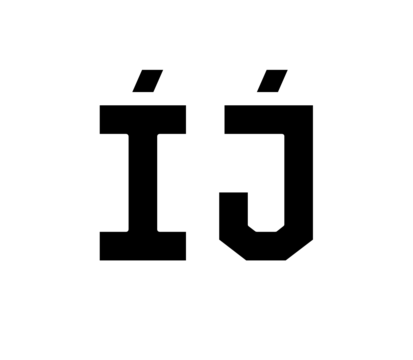
Bombay is a caps-only display font. Its letterforms are sans serif, and they look like they come from a monospaced font. However, Bombay’s monospaced-appearance is just a strong look ; in actuality, its letters have proportional widths. These appear quite industrial and constructed, too – almost as if they had been made by a machine, rather than by Deni Anggara, the Bandung/Indonesia-based type designer behind Bombay. Specifically, this typeface’s ‘M’ and ‘W’ share a nearly-identical form, rotated 180°. Letters that are traditionally rounded, like the ‘C’ or the ‘O’ are all straight-sided. In fact, Bombay does not include any curves in it all all. The ‘Q’, which doesn’t descend, employs a unique space-saving solution for its tail. The ‘J’ also has a tail – which doesn’t descend, either – and a roof-stroke, too: these give its counter a very distinct shape. The zero features a slash inside of its counterform, distinguishing it from the ‘O’. Bombay includes a full range of numerators and denominators for typesetting fractions. Bombay is an excellent choice for headline-typesetting and logo design, but will certainly be used for concert and event flyers, too. It would even be great for branding a sports team.
Family Name | Bombay |
Designer(s) | Deni Anggara |
Classification | Display |